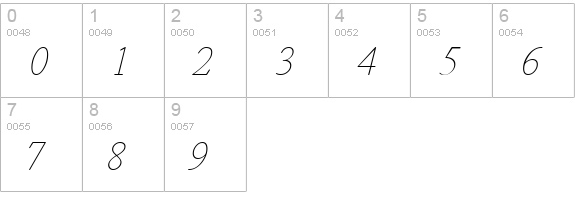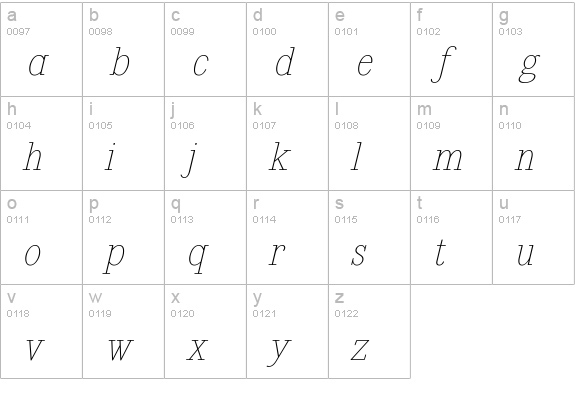
Revelation BTN Lt Oblique is a distinctive, italic variant in the Revelation typeface family \xE2\x80\x94 well suited to design and typography projects.
Revelation BTN Lt Oblique font is a captivating and elegant typeface that is sure to make a lasting impression. Its sleek and modern design is perfect for a wide range of creative projects, from branding and advertising to web design and print materials. This font features a unique combination of sharp angles and smooth curves, creating a harmonious balance between modernity and sophistication. The oblique slant adds a touch of dynamism and energy to any text, making it stand out in a crowd. One of the most appealing aspects of Revelation BTN Lt Oblique font is its versatility. It can effortlessly adapt to various design styles and themes, whether it's a minimalist layout or a bold and vibrant composition. Its legibility remains intact even at smaller sizes, ensuring that your message is always clear and impactful. The best part? Revelation BTN Lt Oblique font is available for free download at FontsMarket.com. This means that you can access this stunning typeface without any cost, making it an ideal choice for budget-conscious designers and enthusiasts. Whether you're a professional designer or just starting out, this free font offers a high-quality and visually striking option for all your creative endeavors. So don't miss out on the opportunity to enhance your designs with the captivating Revelation BTN Lt Oblique font. Download it for free at FontsMarket.com and unlock a world of limitless creative possibilities.